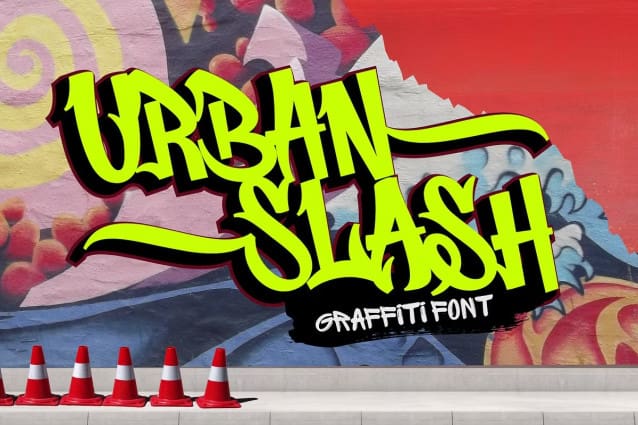
Urban Slash Font
Urban Slash Font is a bold and edgy graffiti font that captures the essence of street art. With its sharp lines and urban vibe, this font is perfect for posters, logos, apparel designs, and projects that need a rebellious, creative touch. Make your designs stand out with Urban Slash!